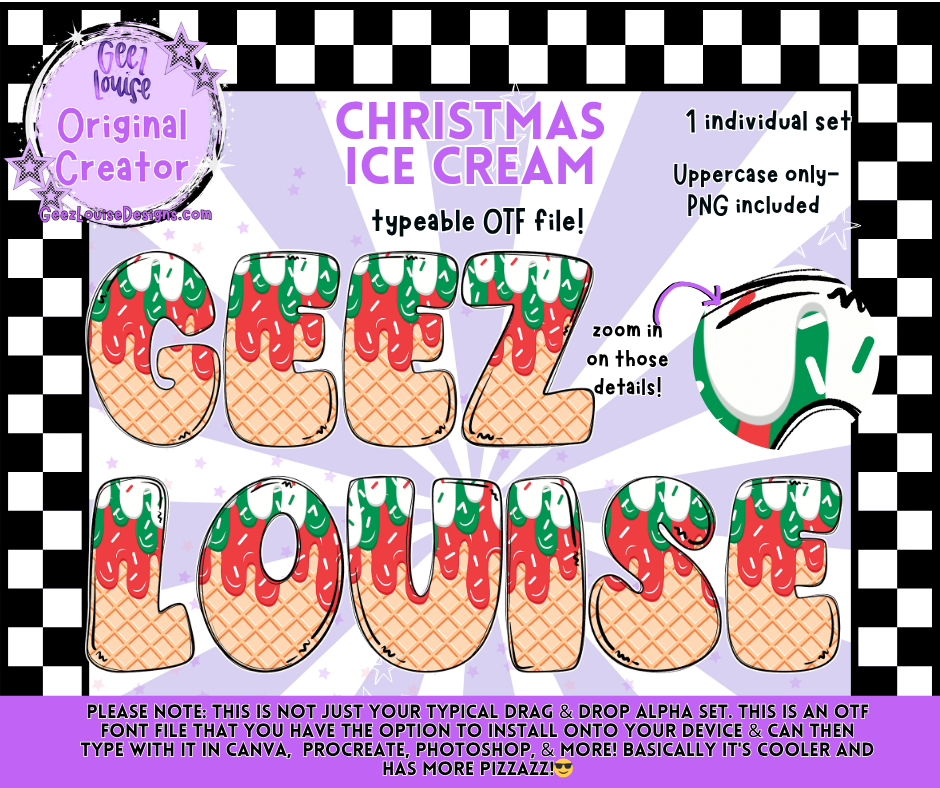
Christmas Ice Cream Font & PNG Alpha | Typeable OTF File
Add some holiday sweetness to your designs with the Christmas Ice Cream font! This festive set features melty red + green ice cream details over a waffle cone base — perfect for seasonal projects that need a little extra pizzazz.
🎄 Perfect for:
• Holiday shirts, mugs, tumblers, & tags
• Festive invitations, cards, and social graphics
• Seasonal branding & creative projects